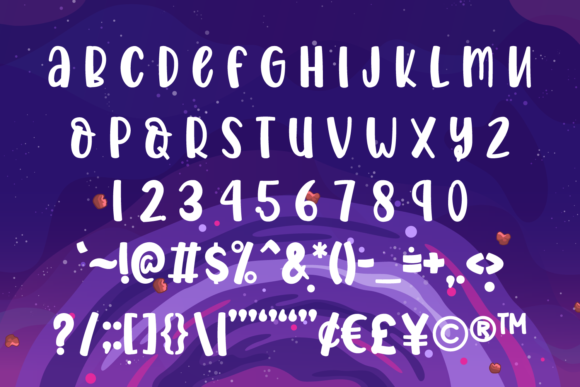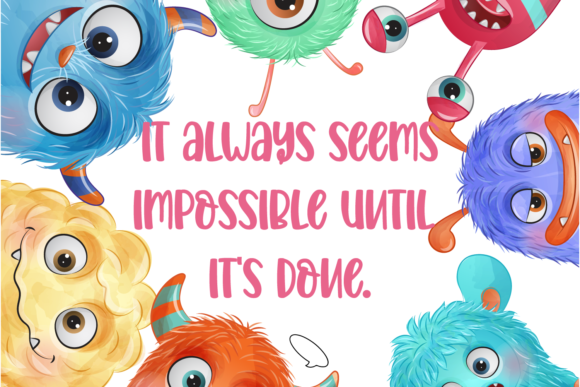
Introducing Galaxy Font: The Perfect Choice for Children-Themed Designs
Are you a designer or crafter looking for a font that can add a touch of fun and friendliness to your projects? Look no further than Galaxy Font! This joyful and bright display font is perfect for children-themed designs, especially when combined with bright colors. In this article, we’ll take a closer look at Galaxy Font, its features, and how you can use it to create stunning designs that kids will love.
What is Galaxy Font?
Galaxy Font is a display font designed to bring a sense of joy and excitement to your designs. Its fun and friendly style makes it perfect for children’s books, educational materials, posters, and any other project that requires a playful touch. The font’s bright and cheerful appearance is sure to capture the attention of kids and make your designs stand out.
Key Features of Galaxy Font
- Fun and Friendly Style: Galaxy Font has a unique and playful style that’s perfect for kids-themed designs.
- Display Font: This font is designed to be used as a display font, making it perfect for headlines, titles, and other prominent text elements.
- Bright and Cheerful: The font’s bright and cheerful appearance makes it perfect for designs that require a playful touch.
- Easy to Read: Despite its playful style, Galaxy Font is easy to read, making it perfect for use in children’s books and educational materials.
How to Use Galaxy Font in Your Designs
Galaxy Font is a versatile font that can be used in a variety of design projects, including:
- Children’s Books: Use Galaxy Font to create engaging and interactive children’s books that kids will love.
- Posters and Flyers: Add a playful touch to your posters and flyers with Galaxy Font, making them perfect for promoting kids’ events and activities.
- Educational Materials: Use Galaxy Font to create educational materials, such as worksheets, activity sheets, and educational posters.
- Digital Designs: Galaxy Font can also be used in digital designs, such as social media graphics, blog posts, and website headers.
Tips for Using Galaxy Font Effectively
Here are some tips for using Galaxy Font effectively in your designs:
- Combine with Bright Colors: Galaxy Font looks best when combined with bright and cheerful colors, making it perfect for kids-themed designs.
- Use for Headlines and Titles: Use Galaxy Font for headlines and titles to add a playful touch to your designs.
- Experiment with Different Sizes: Experiment with different font sizes to create visual interest and hierarchy in your designs.
- Pair with Other Fonts: Galaxy Font can be paired with other fonts to create a unique and interesting design.
Galaxy Font is a fun and friendly display font that’s perfect for children-themed designs. Its joyful and bright style makes it perfect for kids’ books, educational materials, posters, and any other project that requires a playful touch. With its easy-to-read style and versatile design, Galaxy Font is a great addition to any designer’s toolkit. So why not give it a try and see how it can add a touch of fun and friendliness to your designs?
- What is Galaxy Font?: Galaxy Font is a fun and friendly display font designed for children-themed designs.